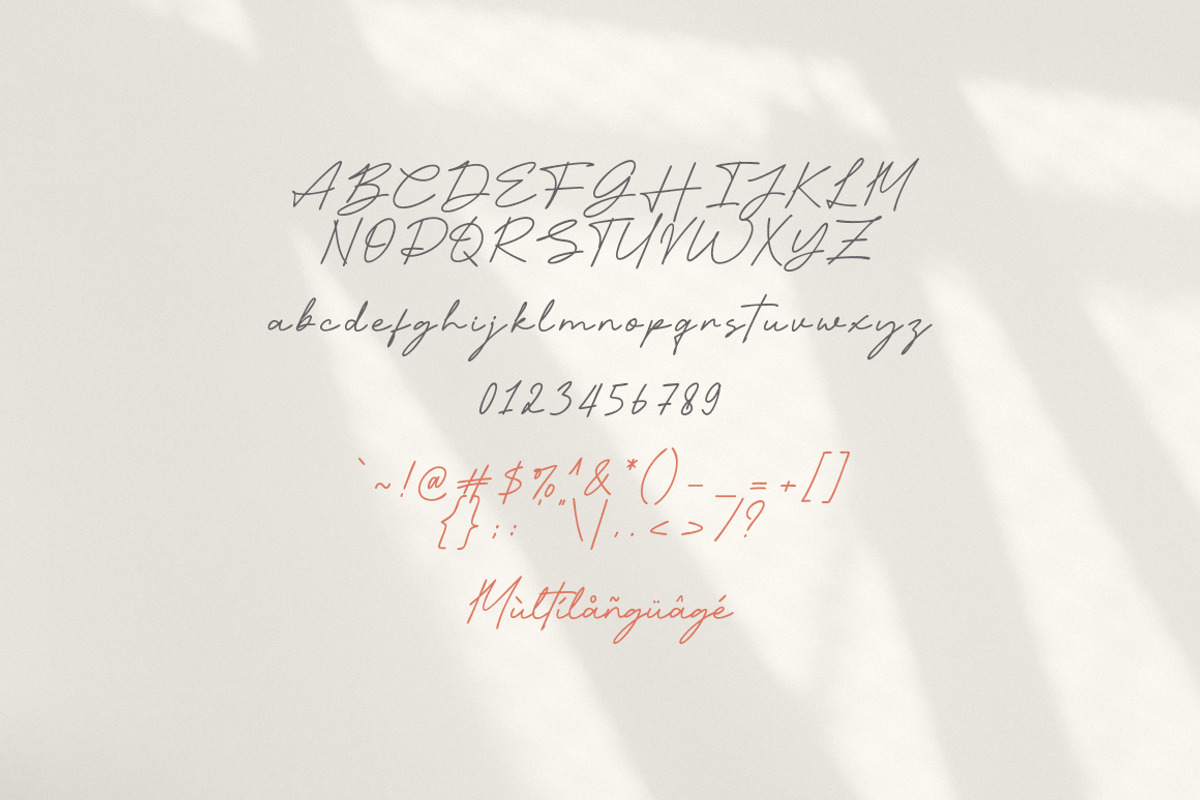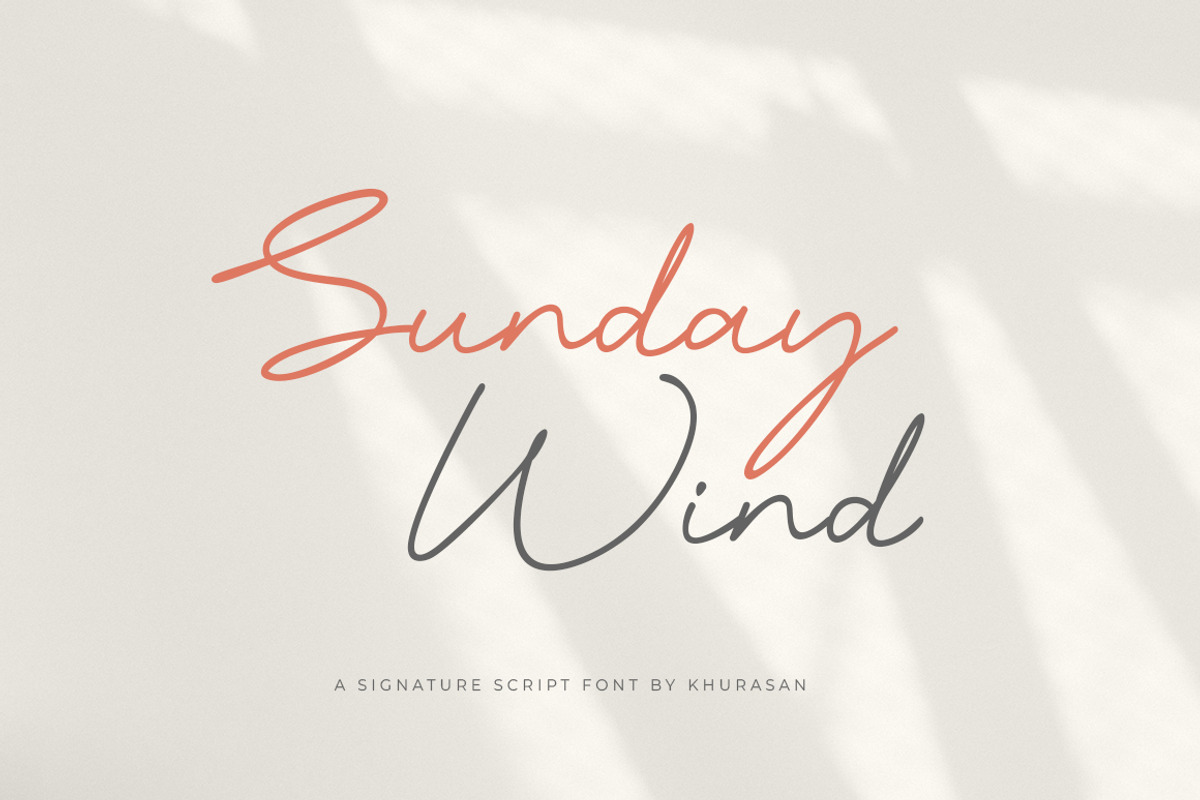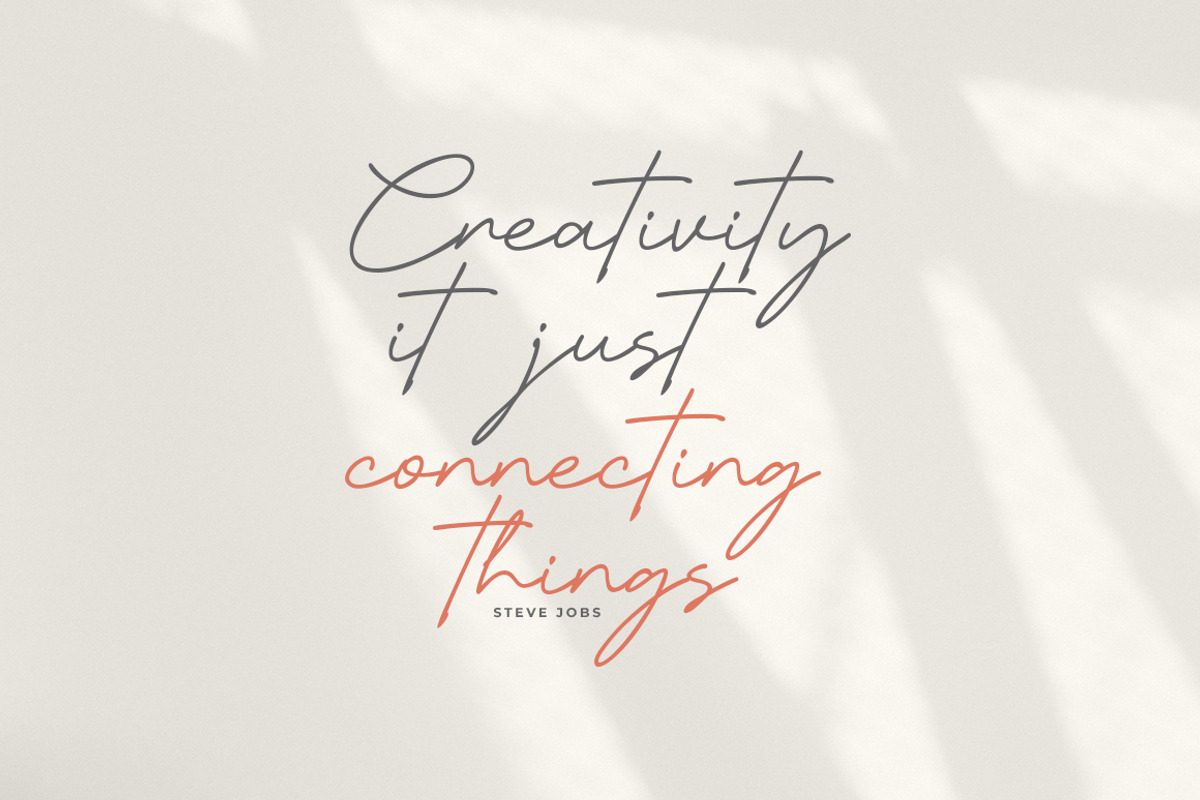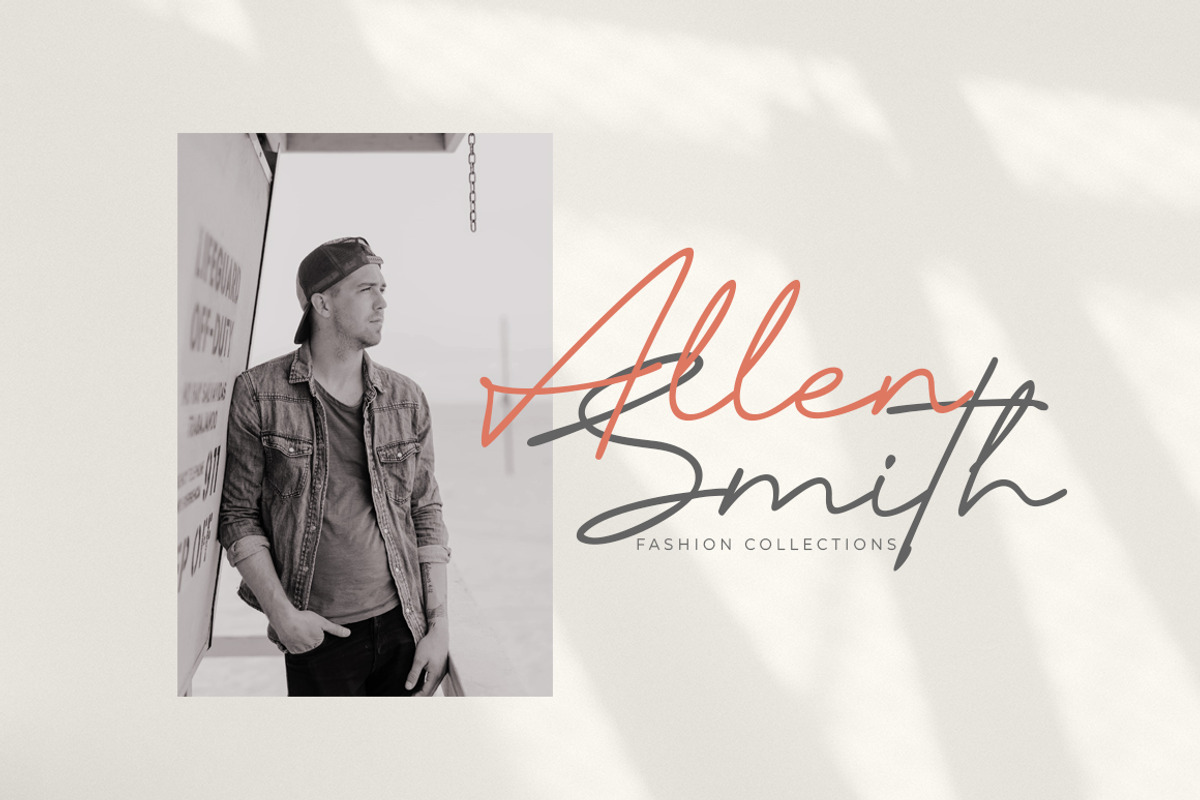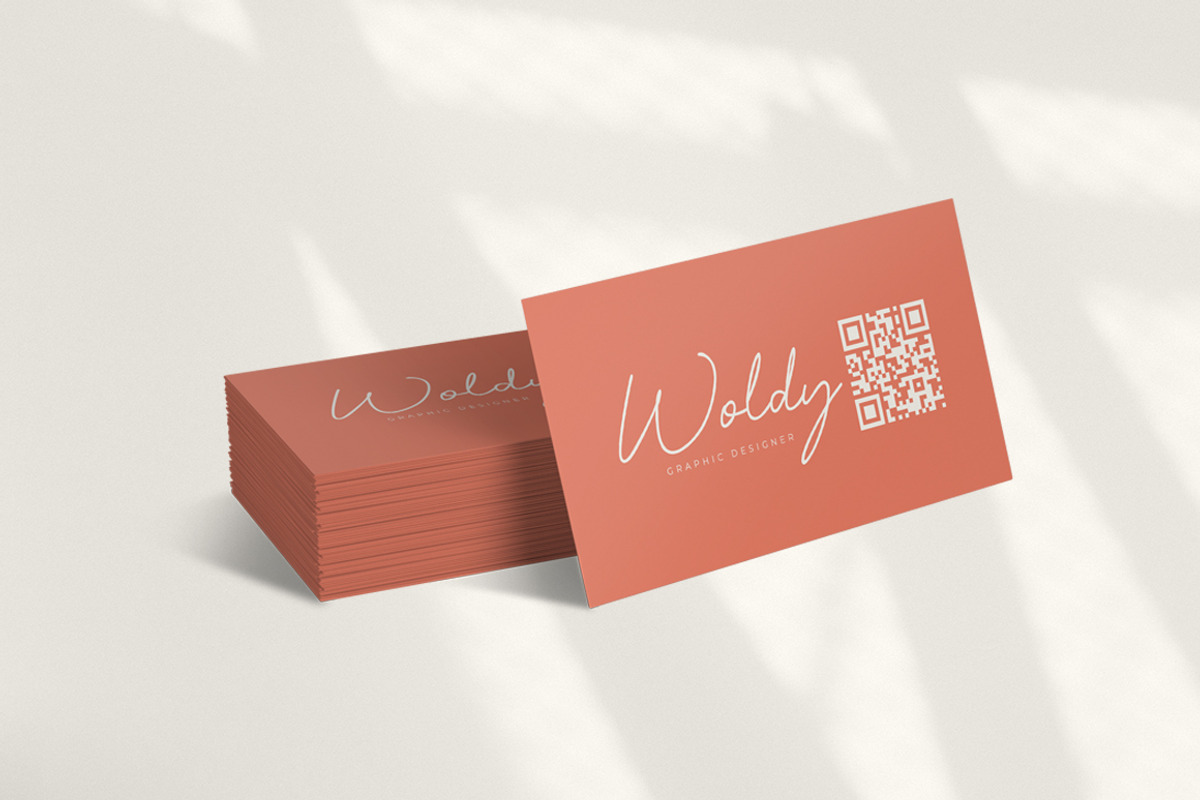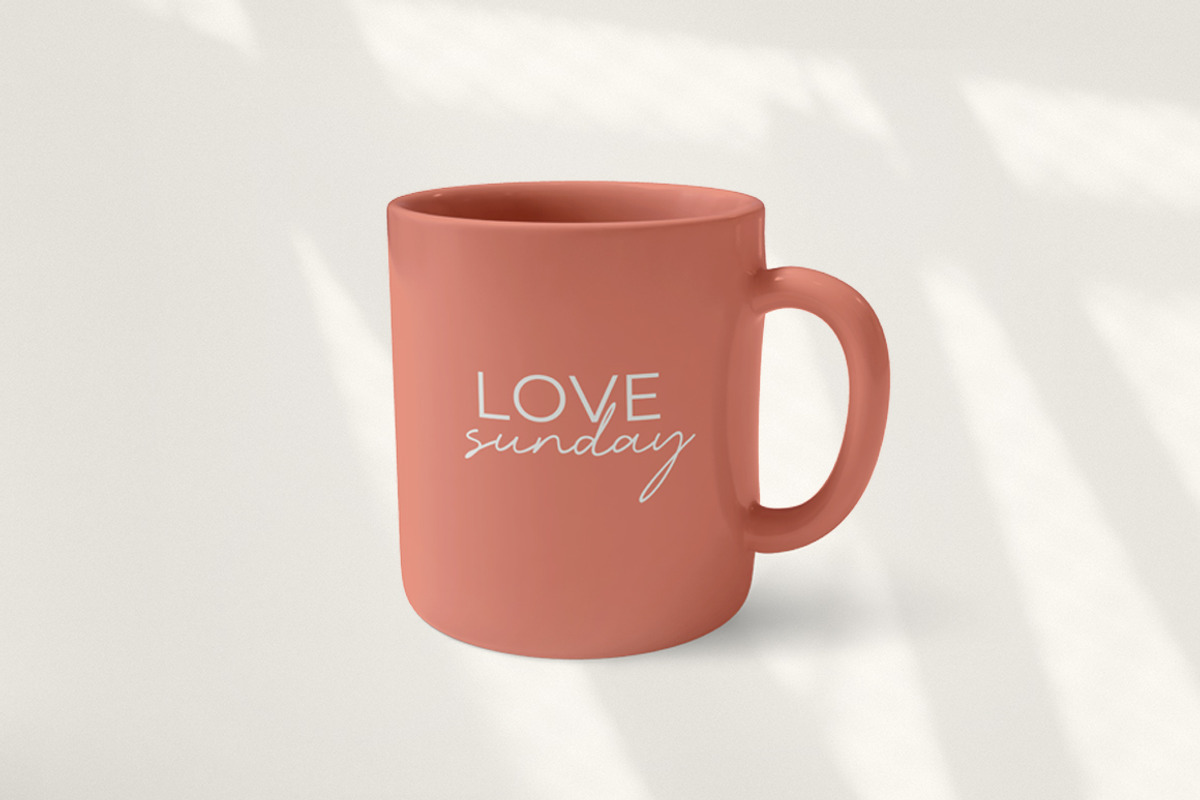
Sunday Wind
Sunday Wind is a modern script font. Sunday Wind font suitable for logo, branding, greeting card, poster and any design that you create…!